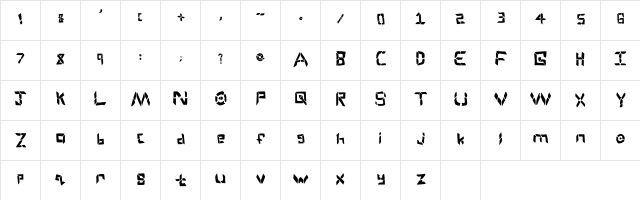
Cyber Sans Font Regular
Design Context for Cyber Sans Font Typeface
Cyber Sans Font channels digital-age aesthetics through its sharp, structured letterforms — ideal for brands that want to signal innovation.
Pro Tip: Try Cyber Sans Font with generous letter-spacing in UI labels and navigation — the geometric forms benefit from room to breathe.